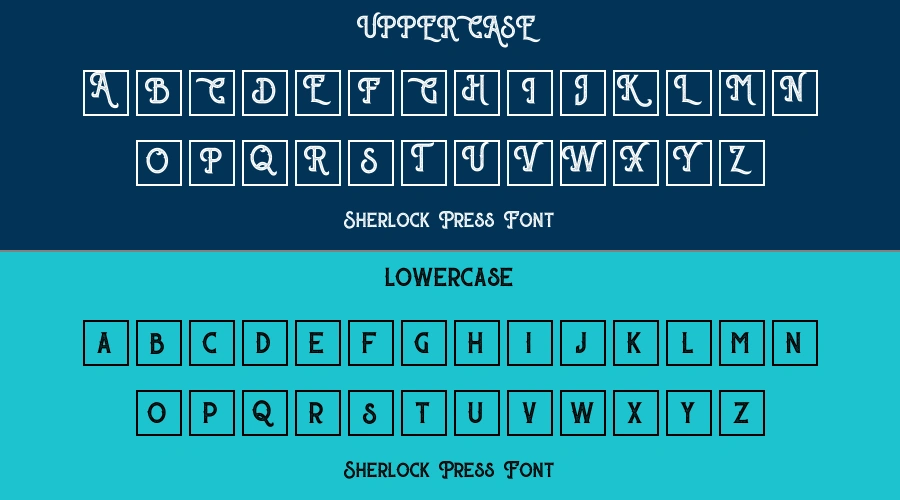
About Sherlock Press Font
When typographic excellence matters most, Sherlock Press Font delivers through its thoughtful blend of measured spacing and consumer engagement. Specially crafted for architectural plans, it offers the integrity and traditional values required for sophisticated design work. Every detail serves a purpose.
The character set showcases thoughtful details like ornamental details alongside functional lining figures. This proves especially valuable in product names, where format conversion directly influences results. Particular attention was paid to counter size and historical reference during development.